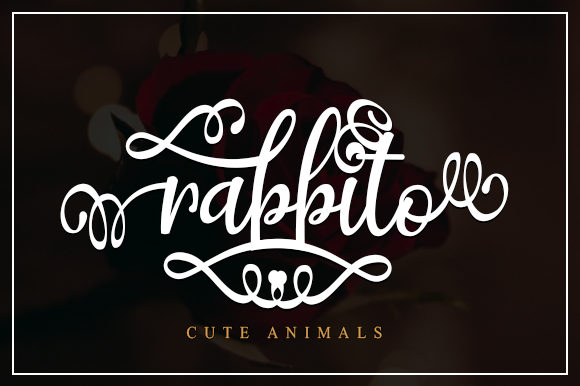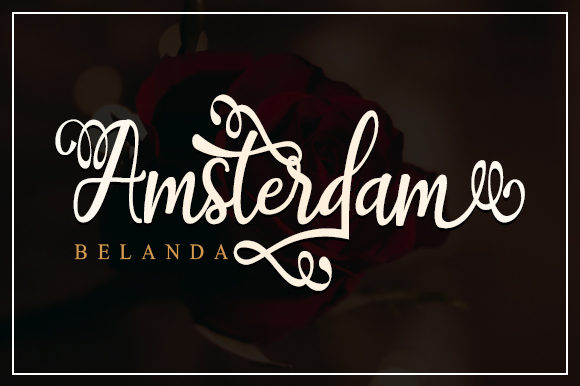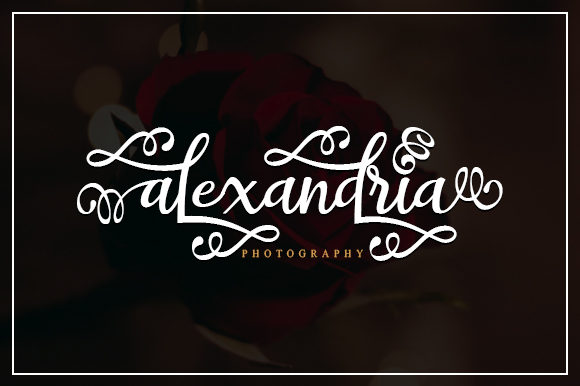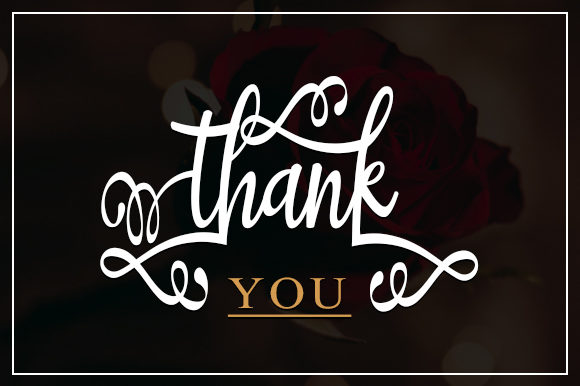
Syakira Script Font
About Syakira Script Font
Syakira is a modern, light and beautiful handwritten font with an incredibly authentic feel. Fall in love with its bold swashes!